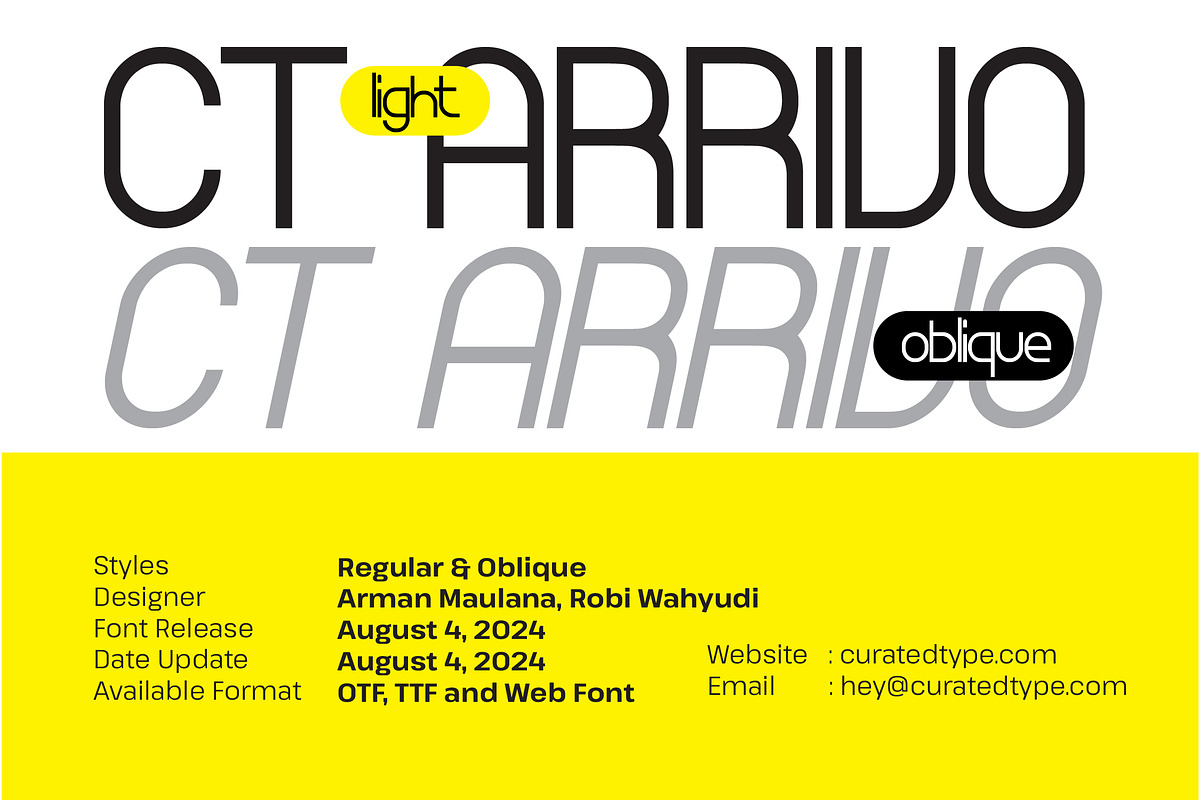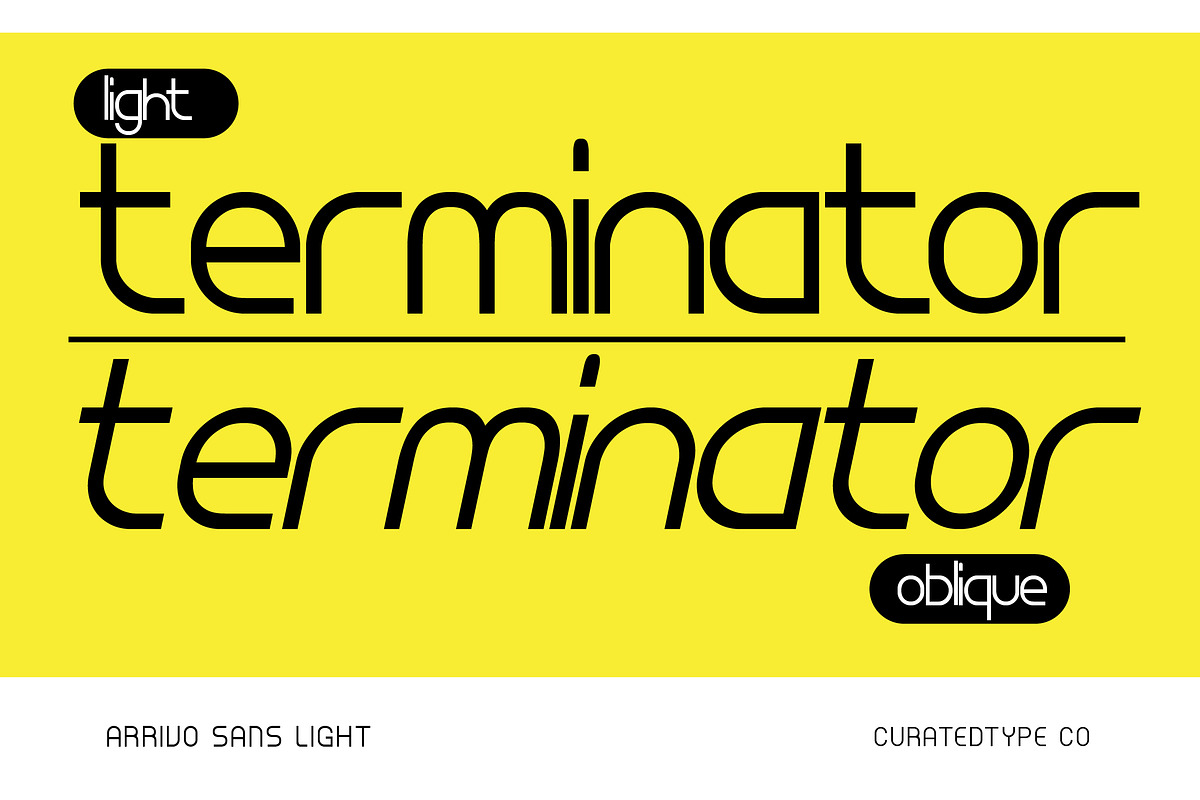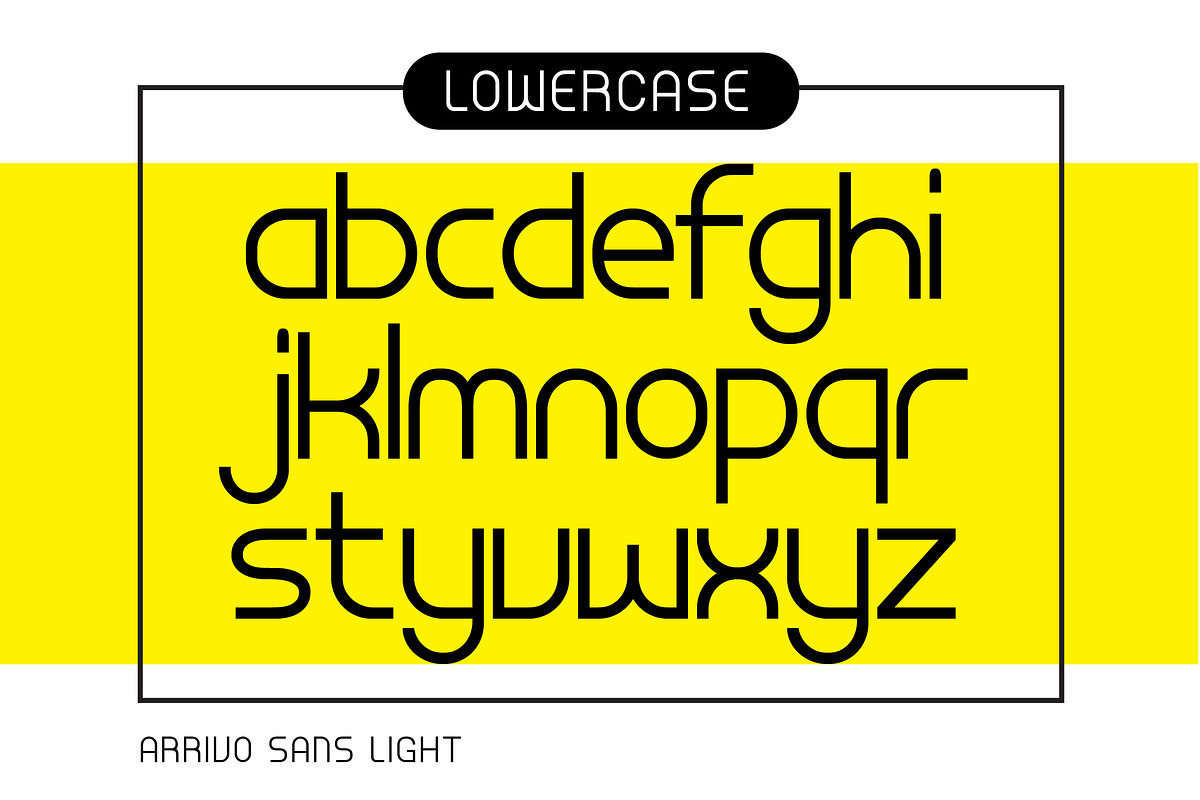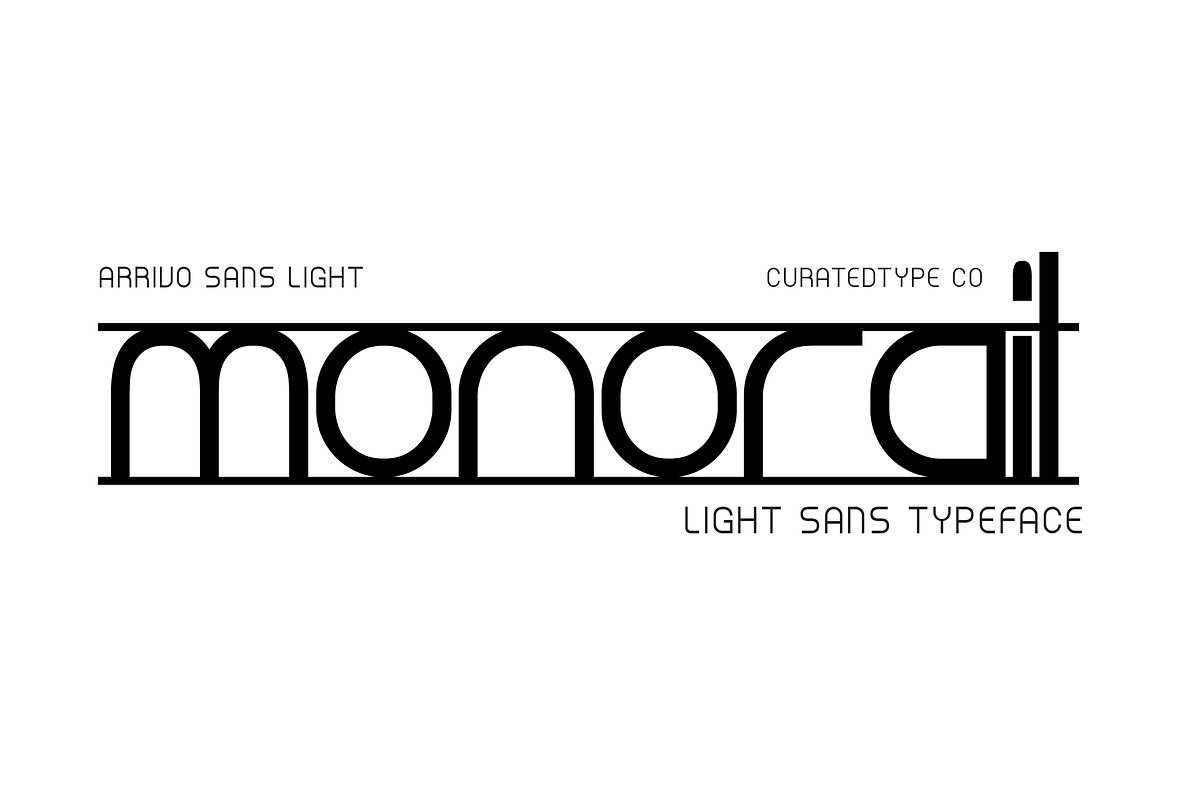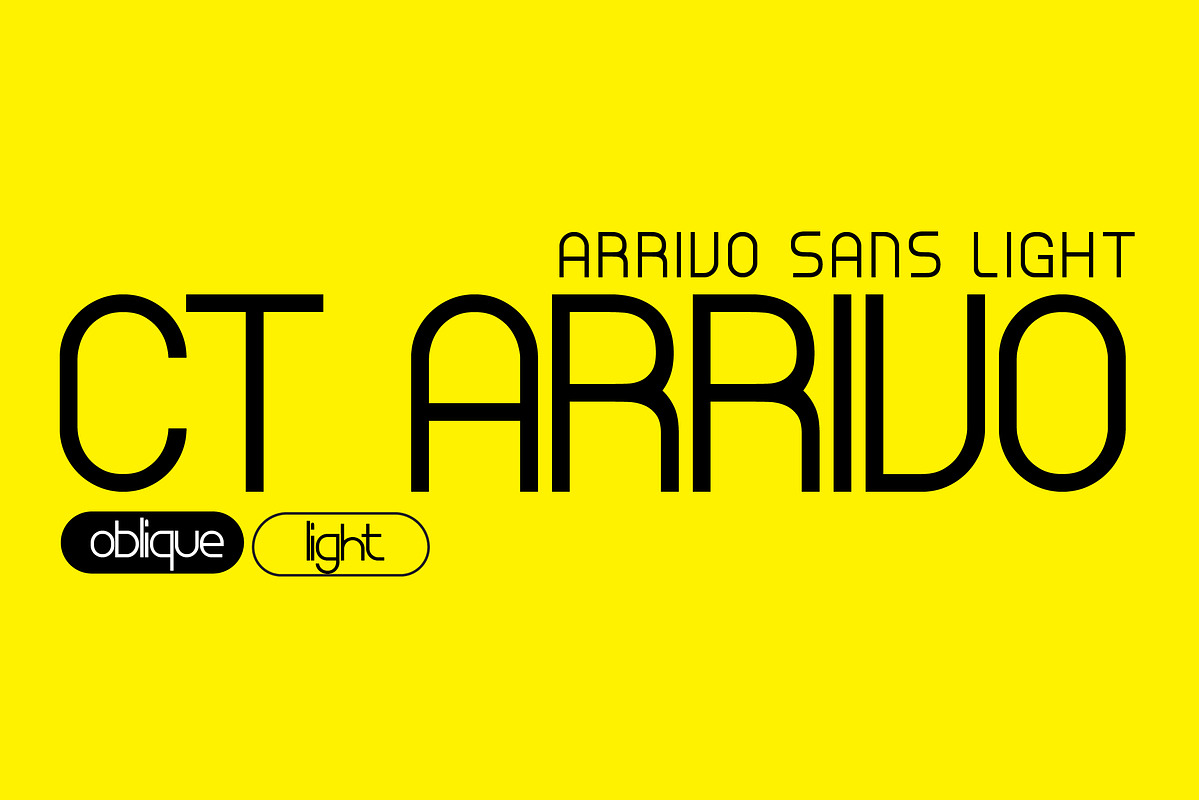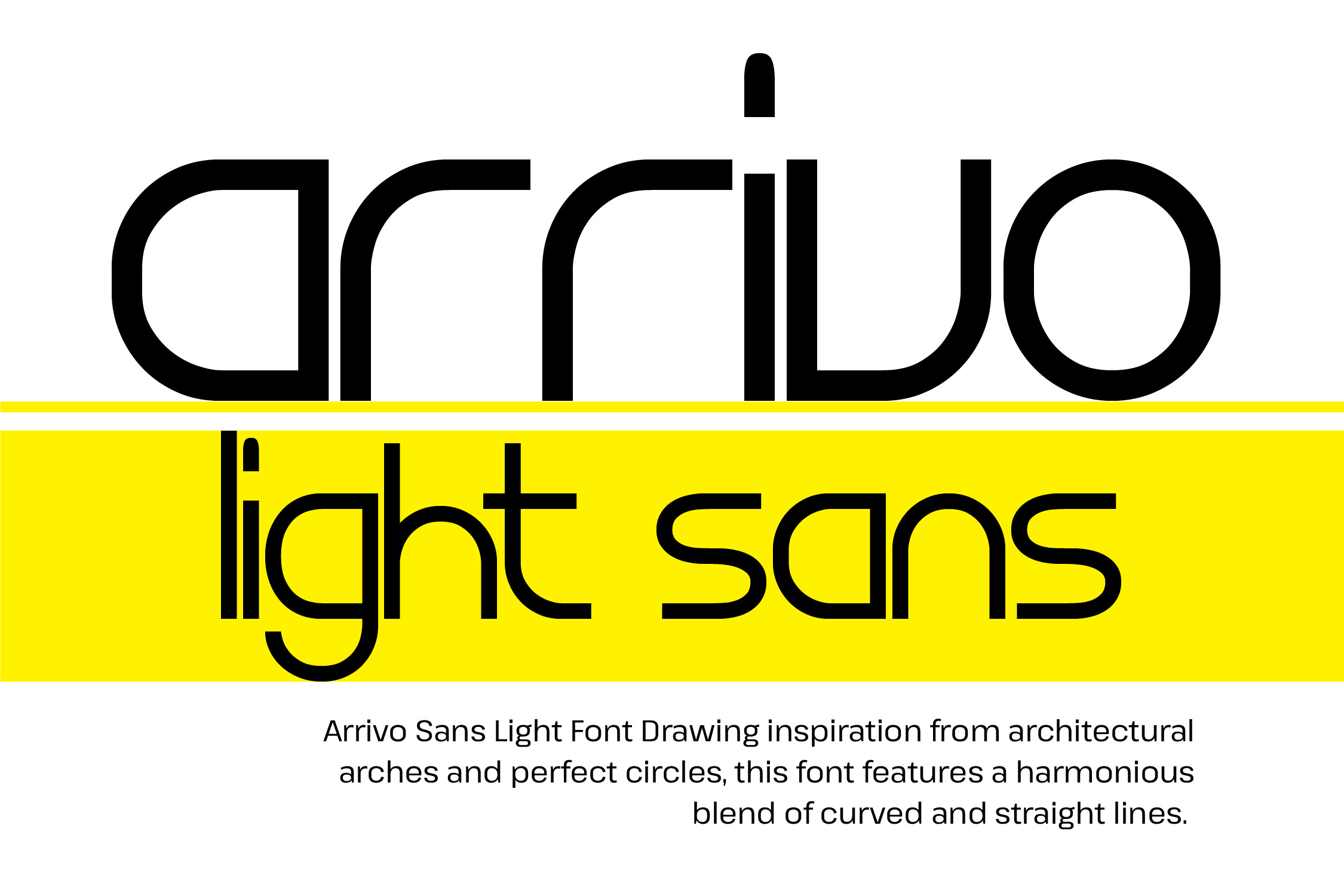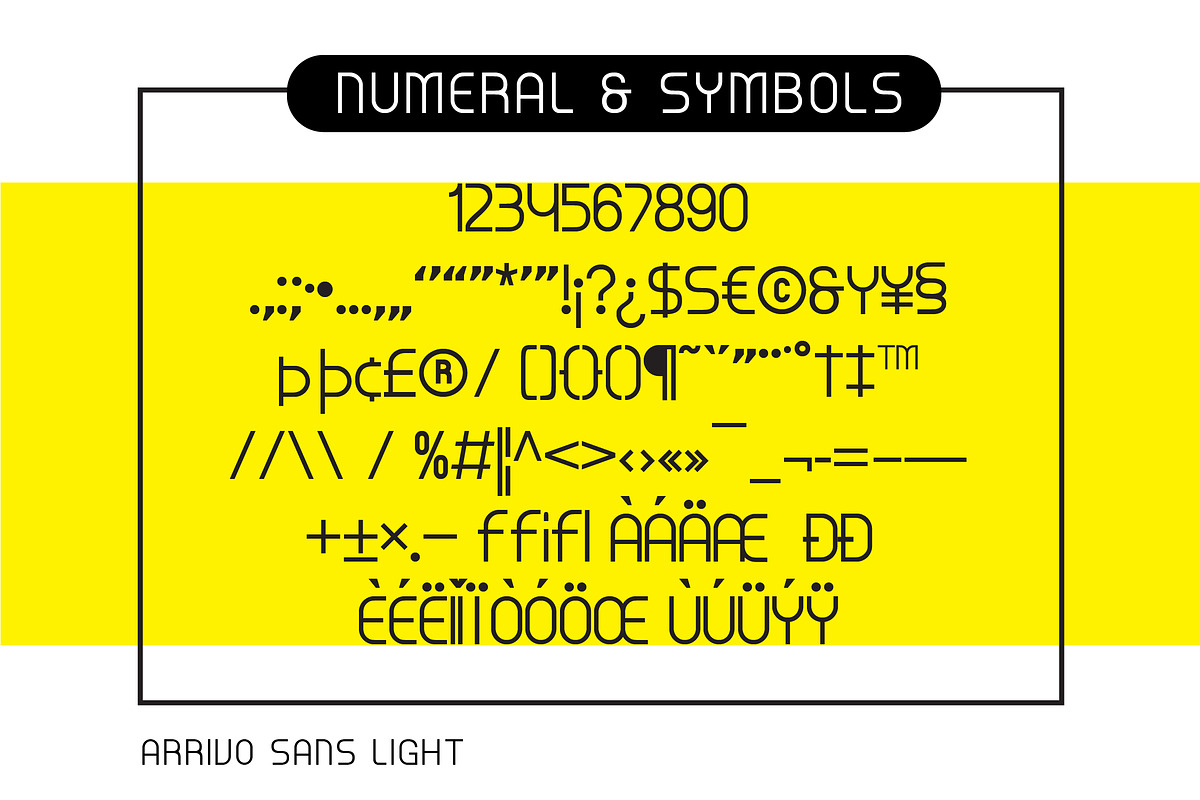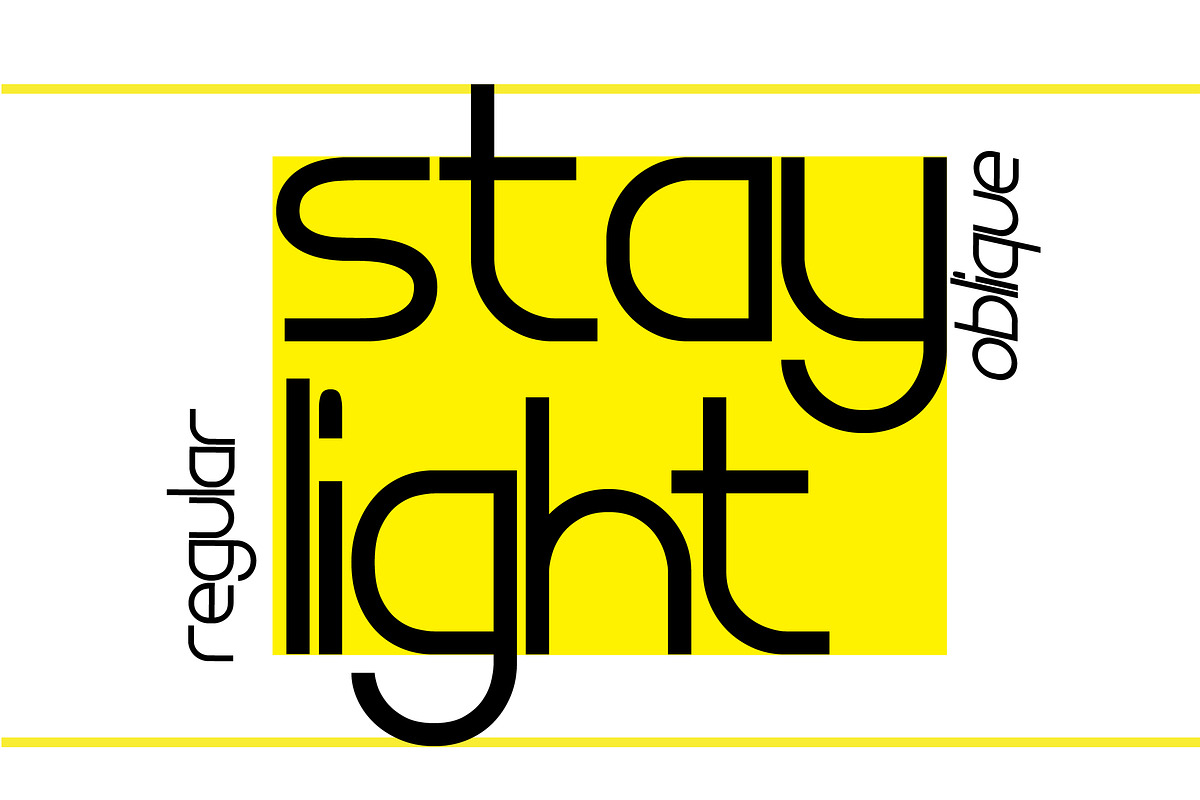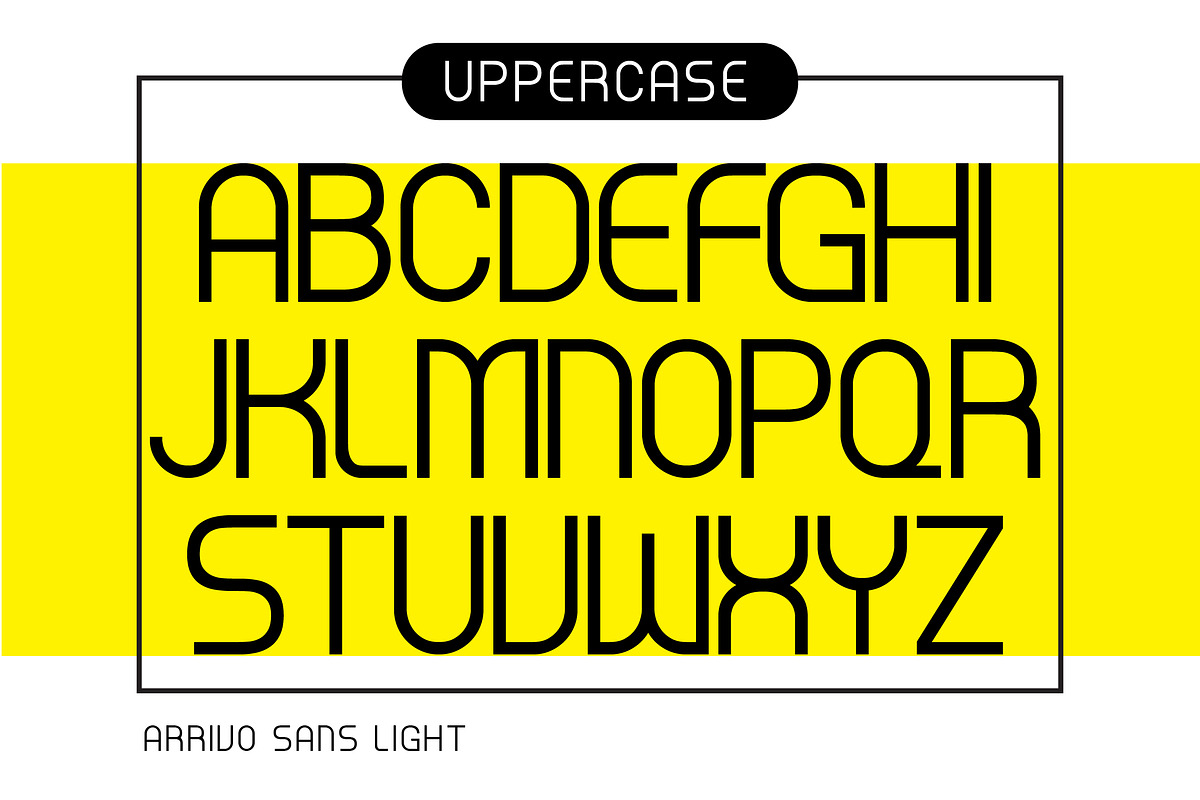
Arrivo Sans Light - Modern Sans Font
Arrivo Sans Light Font Drawing inspiration from architectural arches and perfect circles, this font features a harmonious blend of curved and straight lines. The characters are designed with a subtle roundedness, giving them a soft, approachable feel, while maintaining a strong structural presence.
Each letterform is meticulously crafted to reflect the elegance and stability of archways, combined with the simplicity and minimalism of a sans-serif style. The rounded elements evoke a sense of inclusiveness and continuity, making ArcSans suitable for a variety of design applications, from digital interfaces to print media. Its modern yet timeless design makes it perfect for branding, headlines, and body text, providing excellent readability and a touch of sophistication.